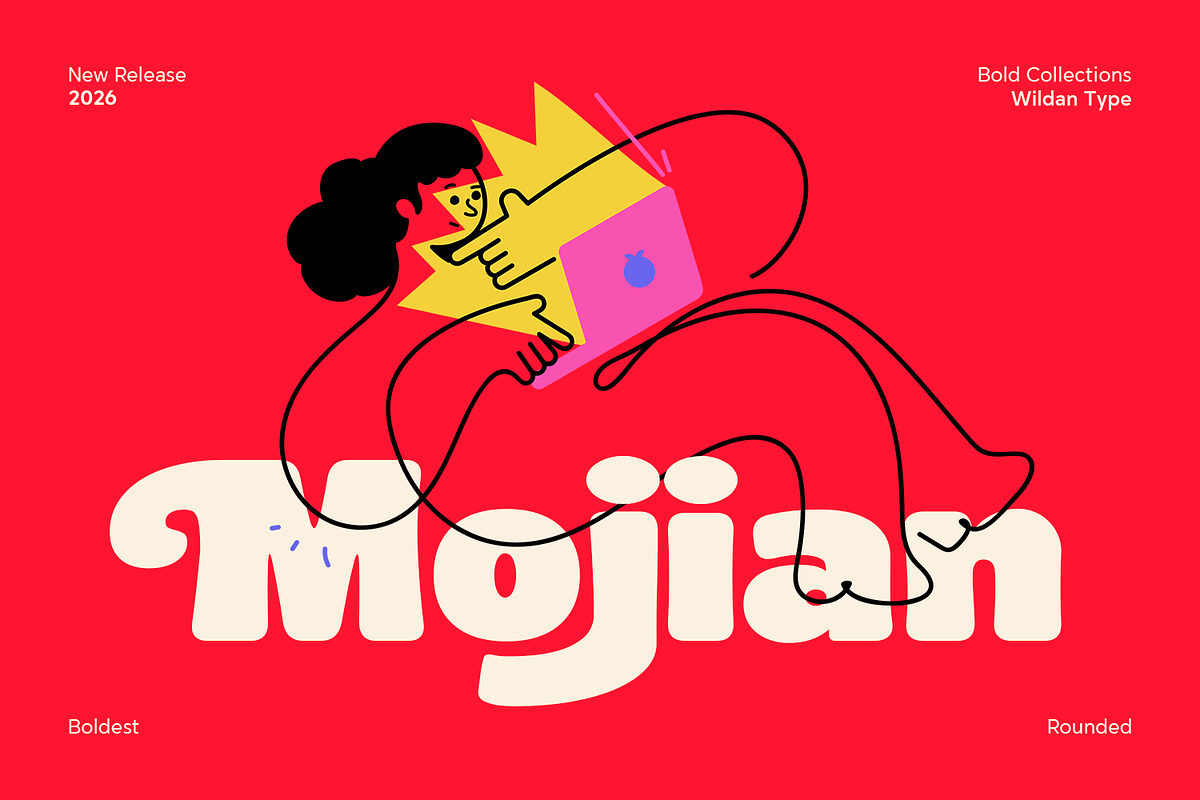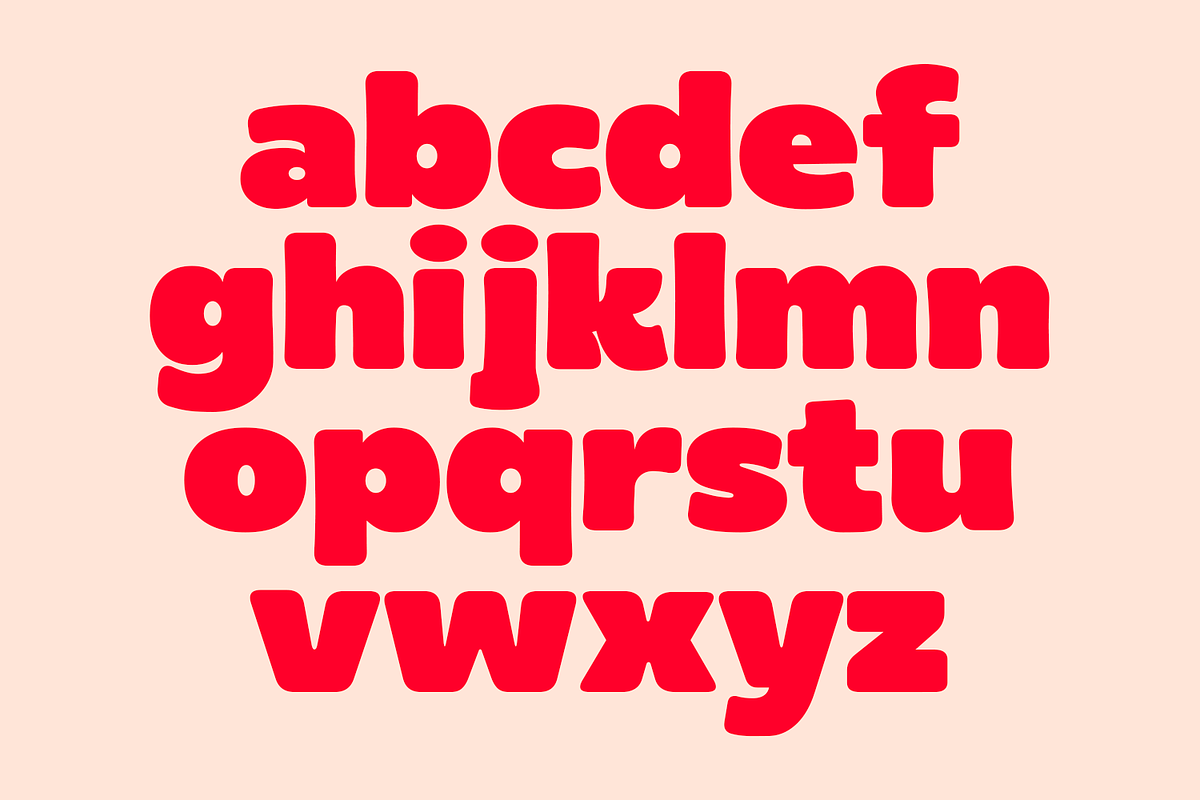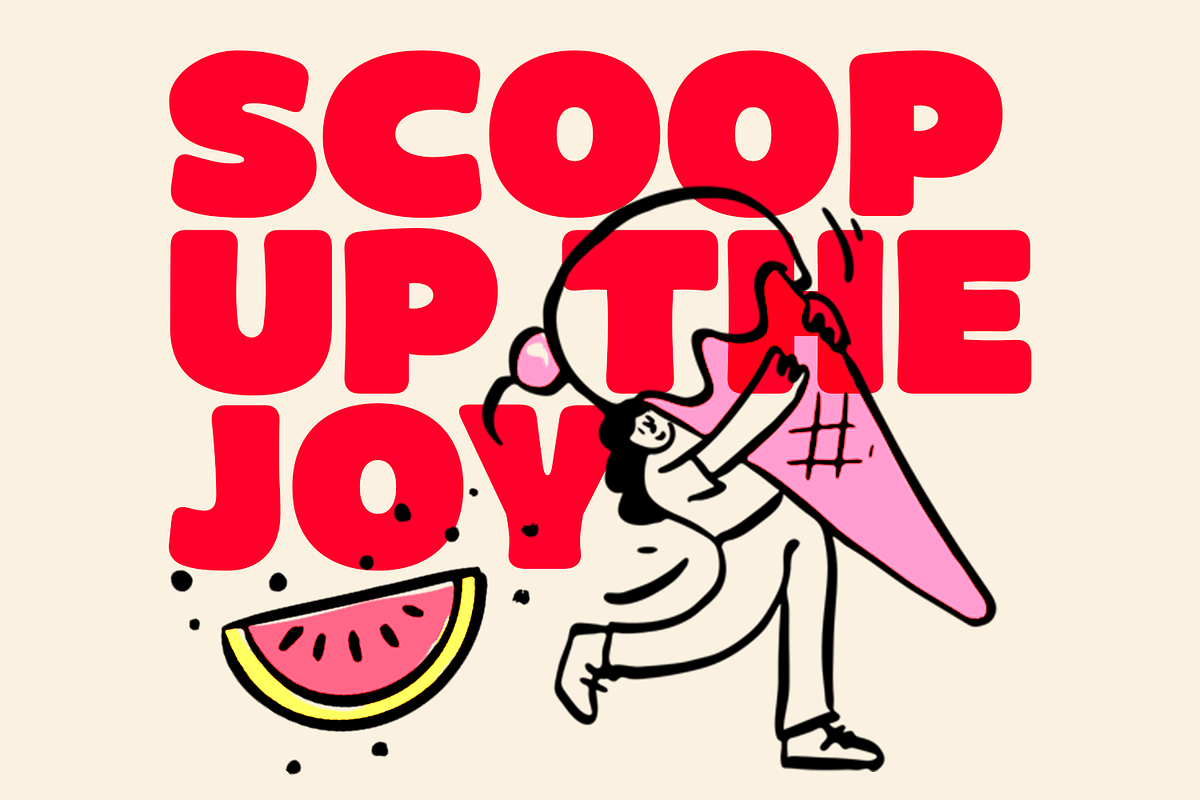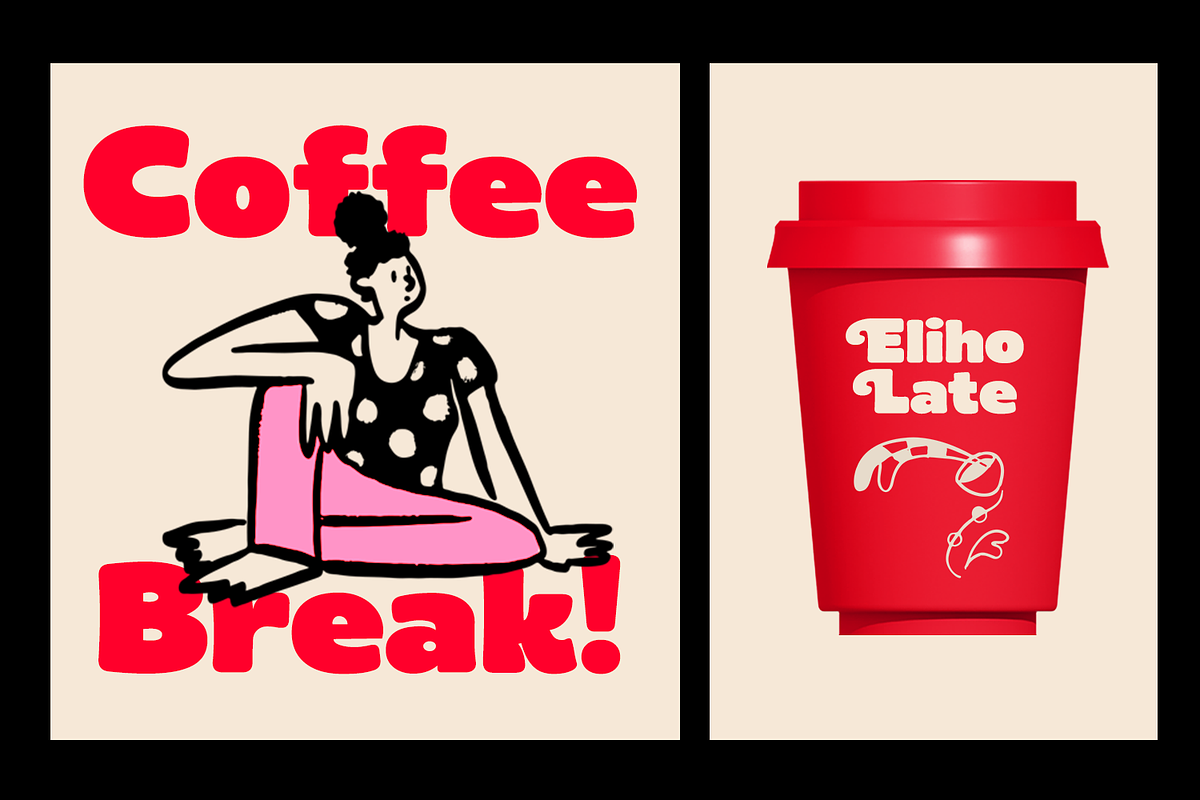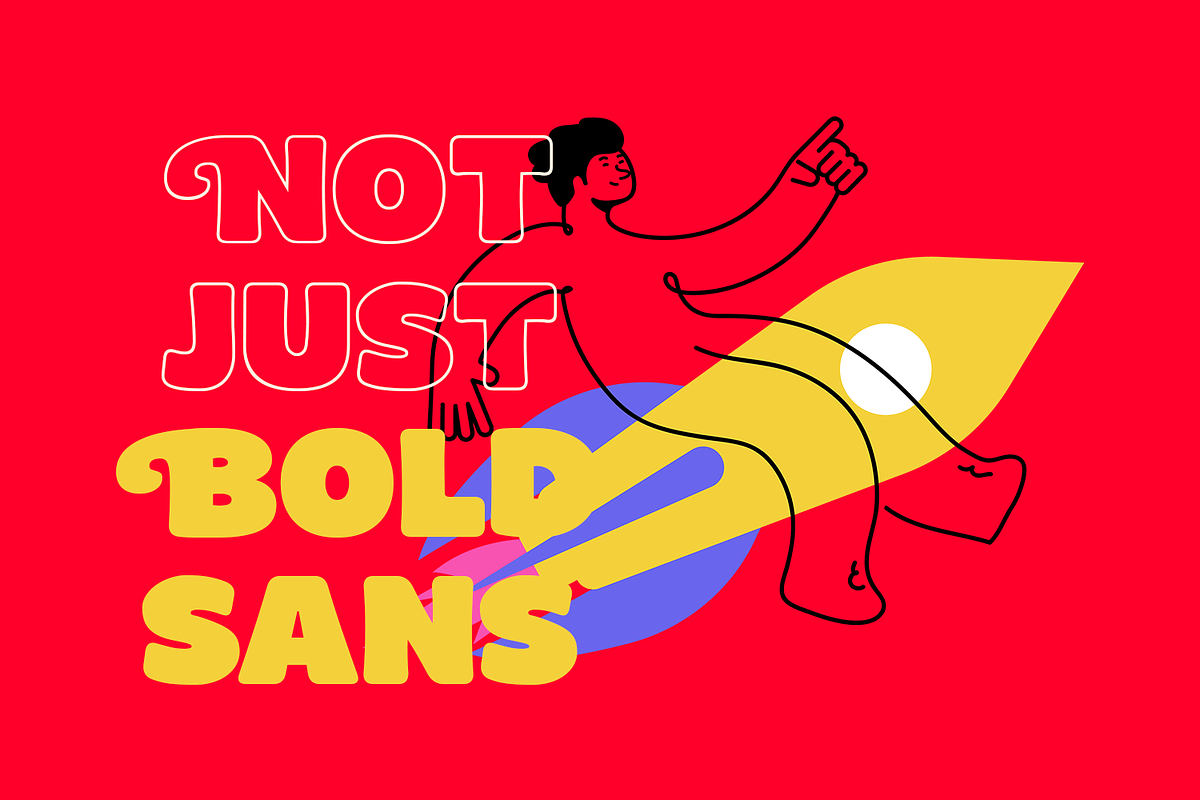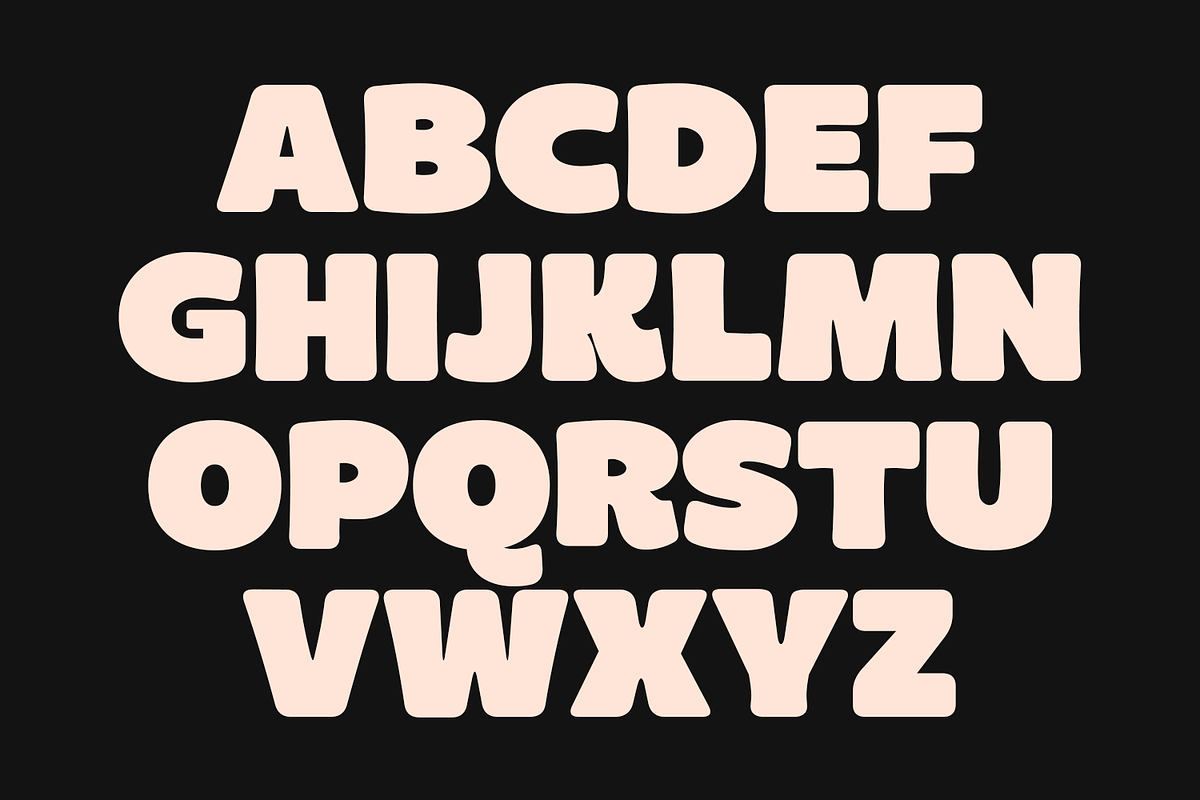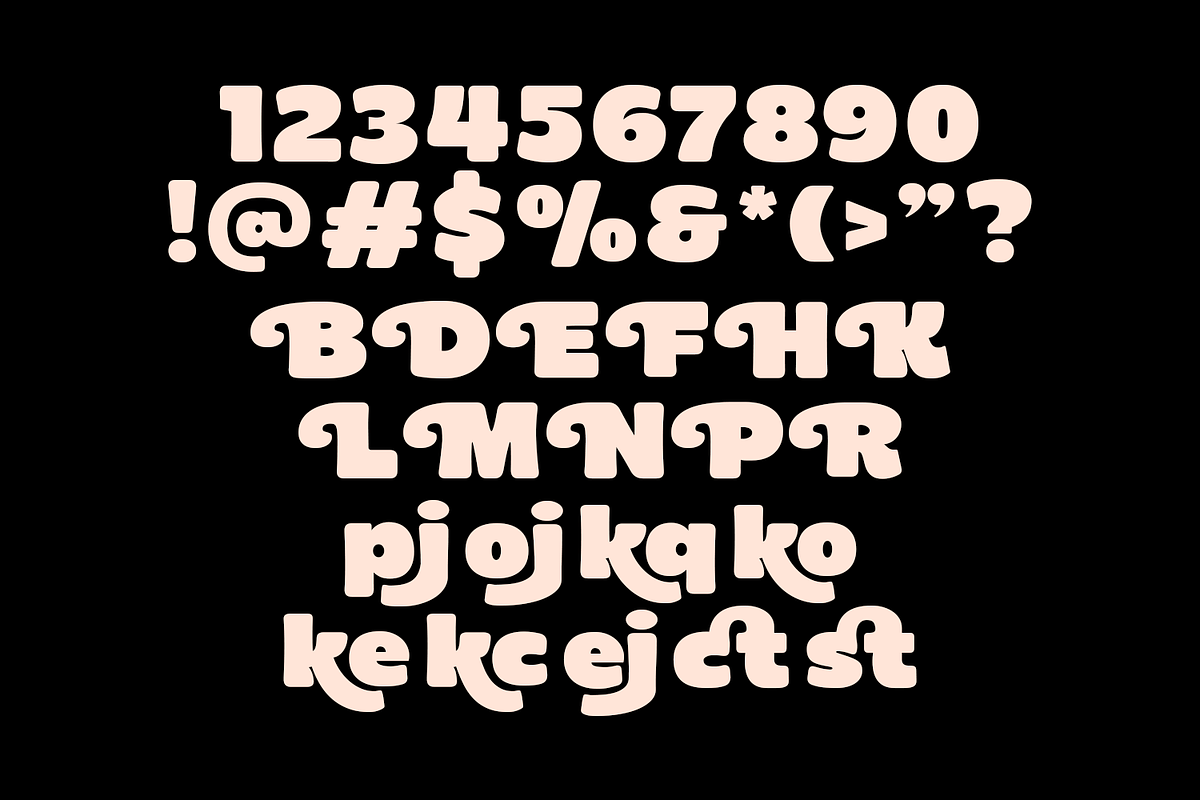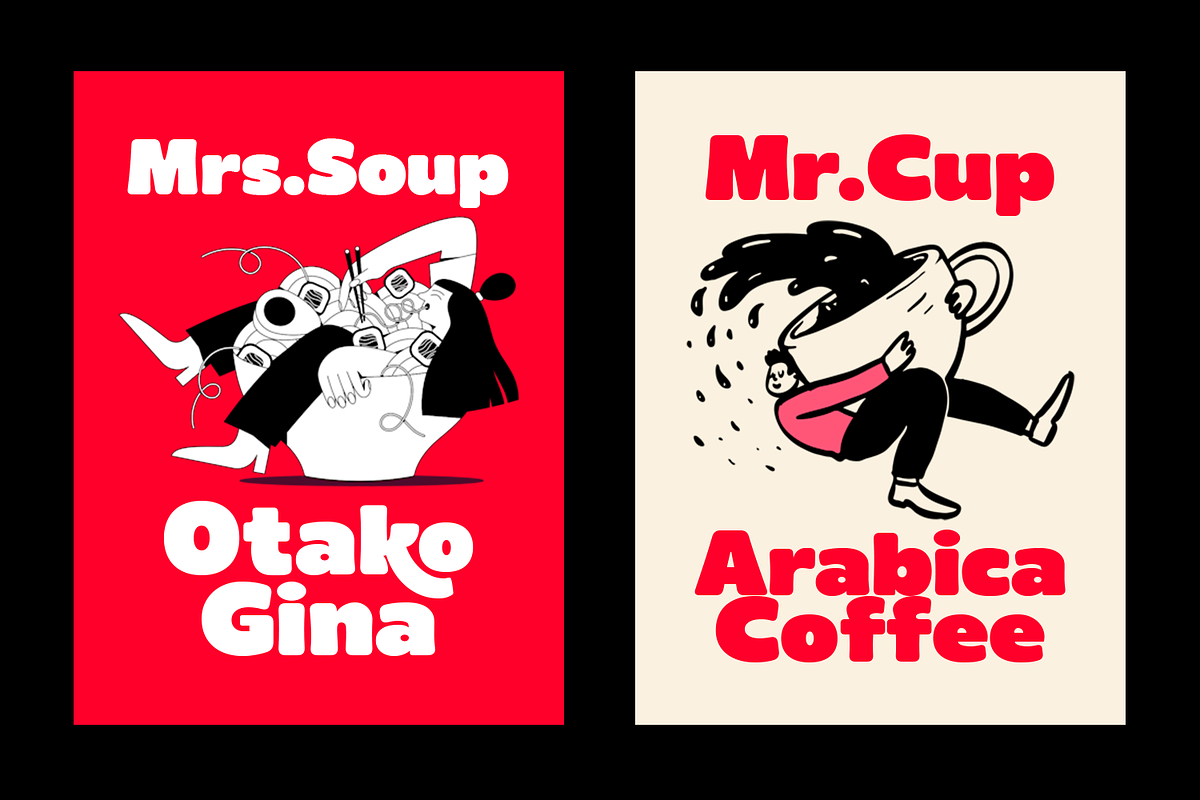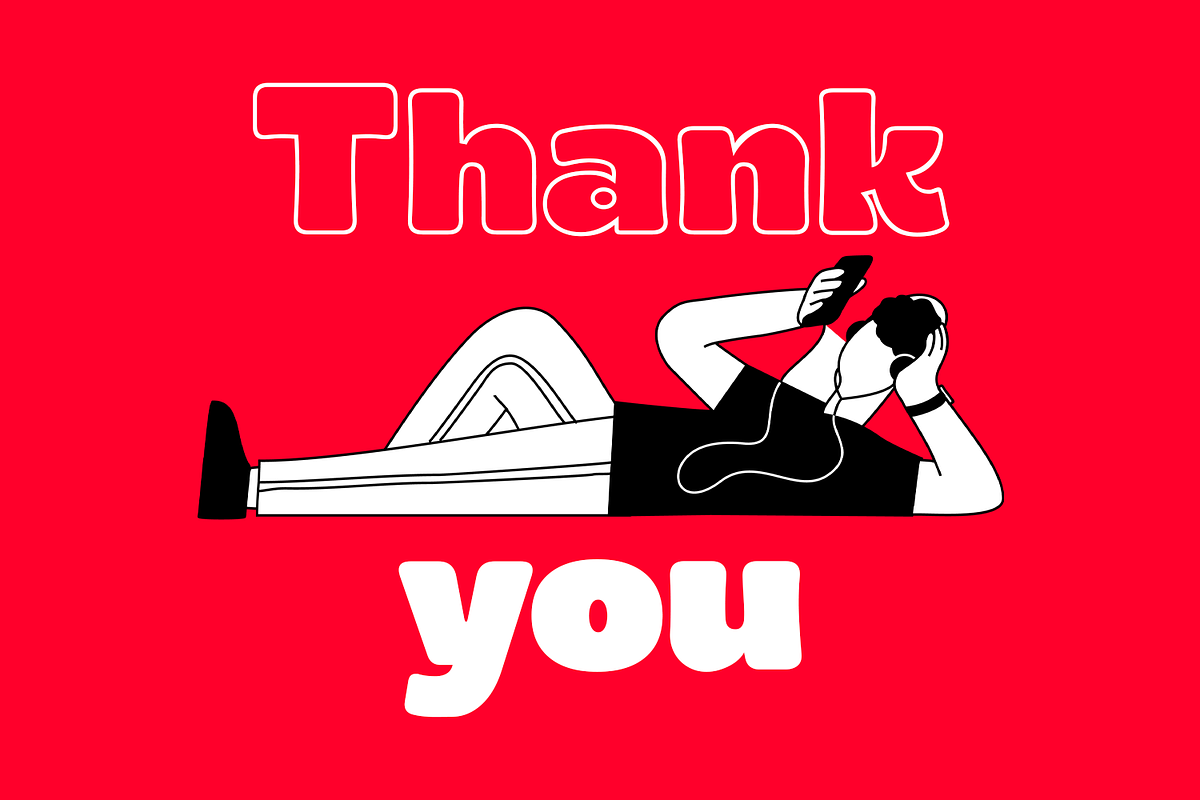
Mojian
Meet Mojian font, the Heaviest and happiest font on the block! Design with maximum boldness in mind, this chubby sans-serif typeface combine the nostalgic funk of the 70s with a modern, playful twist. Every letter is crafted to take up space and grab attention. its rounded corners and heavy weight make it feel soft like marshmallow but strong enough to carry your brand's massage. Whether your aare dsigning trendy, fun, groovy, Mojian brings the energy you need.